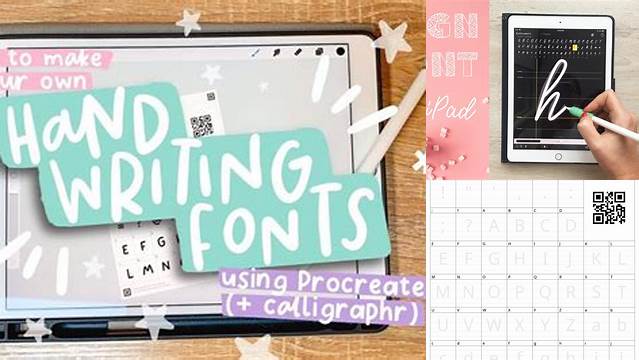
Hey everyone! 👋 Have you ever looked at your own handwriting and thought, "Man, that's unique!" Well, what if you could turn that uniqueness into something even cooler, like your very own handwriting font? Sounds awesome, right? Today, we're diving into how you can make your own handwriting font on your iPad, and the best part? It's totally free! 🤑 No need to be a tech wizard or a design guru – this guide is for everyone, whether you're a student, a creative, or just someone who loves adding a personal touch to their digital life. Let's get started and turn your scribble into something spectacular!
Why Create Your Own Handwriting Font?
So, why bother making your own font, you ask? Well, creating a handwriting font offers a bunch of cool benefits. First off, it's all about personalization. Think about it: instead of using the same old fonts everyone else uses, you'll have a font that's genuinely yours. Your signature style, your quirks, everything is embedded in every letter. This can be super useful for personal projects like creating custom stationery, designing unique logos, or even making your digital notes stand out. Imagine sending emails or writing reports using your own handwriting – it’s like adding a personal stamp to everything you do! ✍️
Secondly, a handwriting font can give your content a more authentic and human feel. In a world dominated by sleek, digital fonts, a handwritten font can make your work stand out. It adds a touch of personality and warmth that can really resonate with people. This is especially great for creative projects, like designing invitations, crafting social media posts, or even building a personal brand. It's all about connecting with your audience on a more intimate level. 💖
Also, learning how to make your own font is a fantastic way to explore your creativity. It’s a fun project that can unlock new skills and a deeper appreciation for typography and design. You don’t need fancy software or a degree in graphic design to get started; all you need is your iPad, a bit of patience, and a dash of creativity. It's a fun project to teach yourself new skills. Creating a font is a cool way to express yourself and improve your creative skills! 🧑🎨
Lastly, it's a great way to preserve your handwriting. In an increasingly digital world, handwriting can become a lost art. By turning your handwriting into a font, you ensure that your unique style lives on, even as technology evolves. It’s a digital legacy of sorts, a way to keep a piece of yourself alive in the digital world. It's like having a digital signature that you can use forever! 😎
- Patience: This is key. Creating a font takes time and effort. Don’t get discouraged if your first attempt isn't perfect – practice makes perfect!
Step-by-Step Guide to Making Your Font
Okay, buckle up, because we're about to walk through the process step-by-step. Here's how to create your very own handwriting font on your iPad. We'll be using a free app to make this process easy.
Step 1: Choose Your App and Create an Account
First things first, download and install the font creation app of your choice from the App Store. Once installed, open the app and create an account or log in, if required. Most apps will have a simple interface to help you get started. Take some time to familiarize yourself with the app’s features and tools. Knowing the interface well will save you a lot of time later. 🤔
Step 2: Set Up Your Font Project
In the app, start a new project for your font. You'll likely be prompted to name your font and choose a basic style, like a regular or bold version. Some apps let you create multiple versions, which is cool! Then, select the characters you want to include in your font. Start with the basics: all the letters (uppercase and lowercase), numbers, and common punctuation marks. You can always add more characters later, but starting with the essentials is the best way to get your font up and running quickly. 💯
Step 3: Trace or Draw Your Letters
This is where your creativity comes to life. The app will provide a template for each character. Using your Apple Pencil (or stylus), carefully trace over the template or draw the characters directly. The app will convert your drawings into a digital font. Don’t worry if your first attempts aren’t perfect. It might take a few tries to get the hang of it. Practice writing the letters over and over again until you're happy with the way they look. Consistency is the most important thing here; try to keep your handwriting consistent throughout the entire font. ✍️
- Installation Problems: Ensure you follow the correct installation instructions for your iPadOS version. Double-check that the font file is compatible with your iPad.
Creating your own handwriting font on your iPad is a fun, rewarding project that lets you add a personal touch to your digital life. With the right tools and a bit of practice, you can transform your handwriting into a unique and stylish font. So, grab your iPad, get creative, and start making your own font today! Happy font-making! 🎉